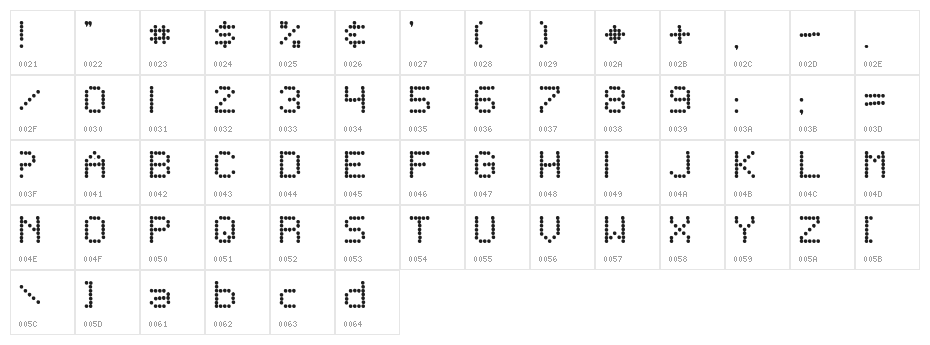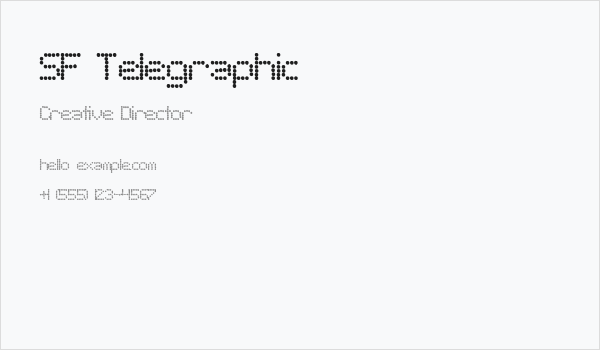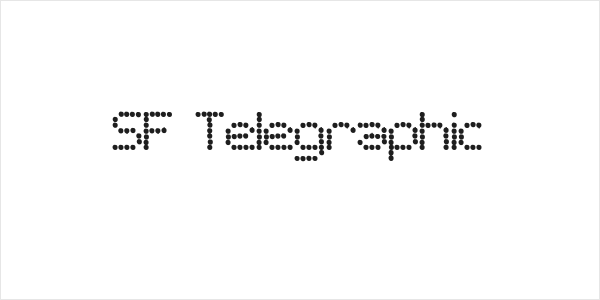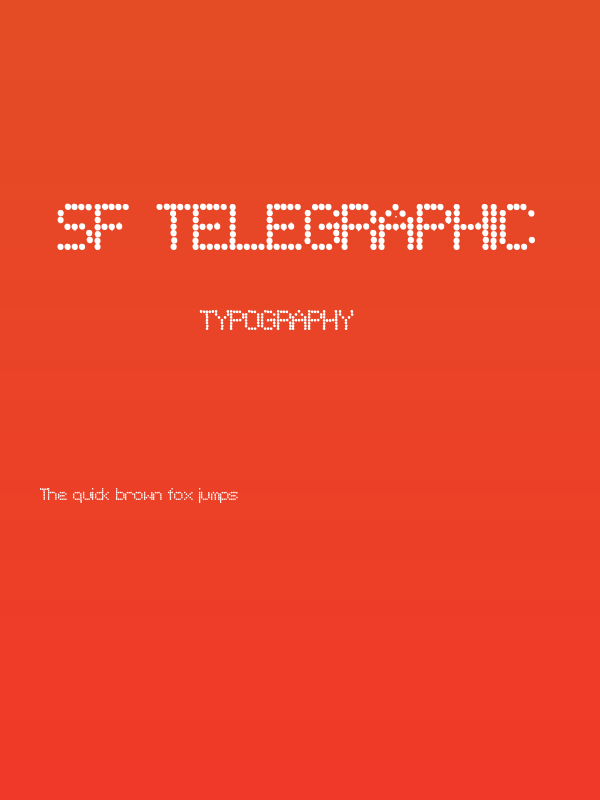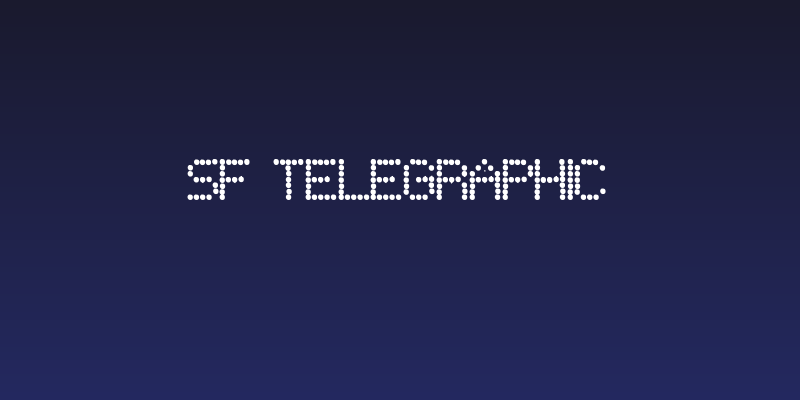
SF Telegraphic Font
SF Telegraphic Description
This font is a unique and modern display typeface composed entirely of dots arranged in a grid pattern to form each character. The design is reminiscent of digital displays or LED screens, giving it a futuristic and technological feel. Each letter and number is constructed with precision, maintaining uniformity in size and spacing of the dots, which creates a cohesive and structured appearance. The font is highly legible despite its unconventional style, making it suitable for creative and innovative design projects. The consistent use of dots provides a playful yet sophisticated aesthetic, ideal for capturing attention in headlines or logos.
| Proposed Projects | Ideal for digital displays, tech-themed branding, futuristic posters, and innovative advertising campaigns. |